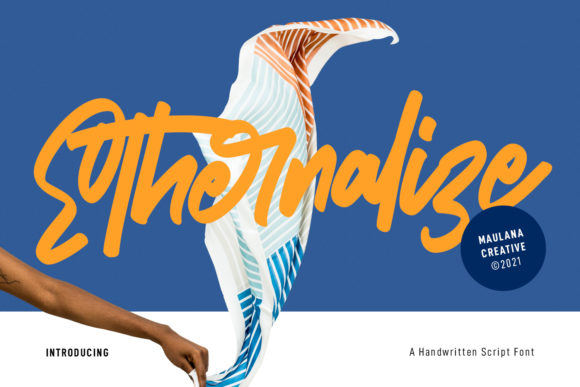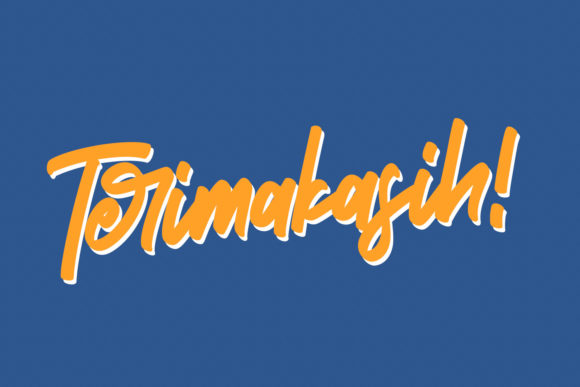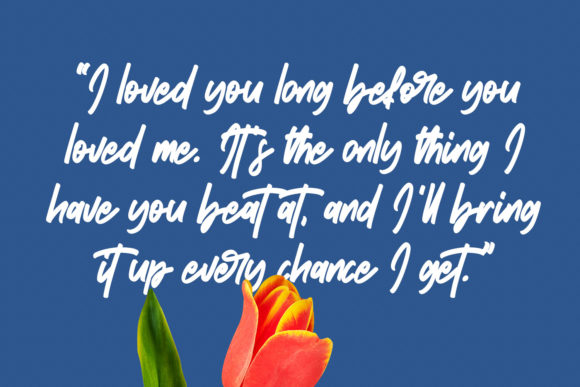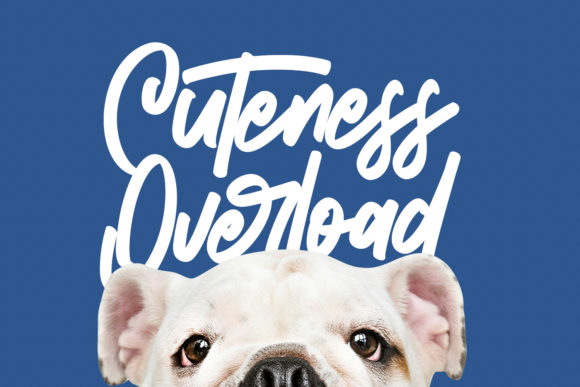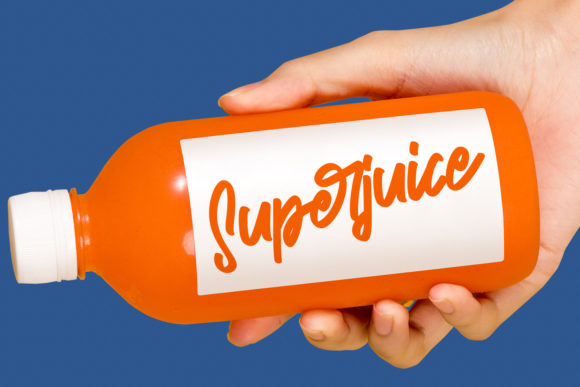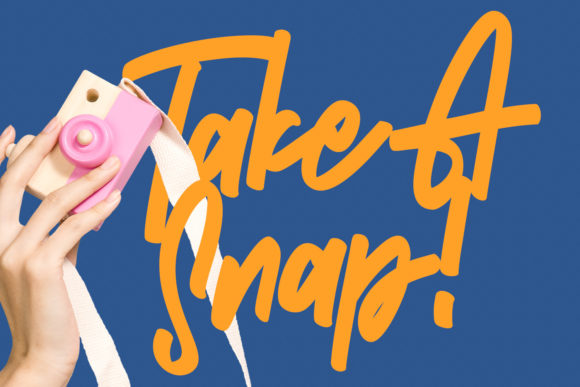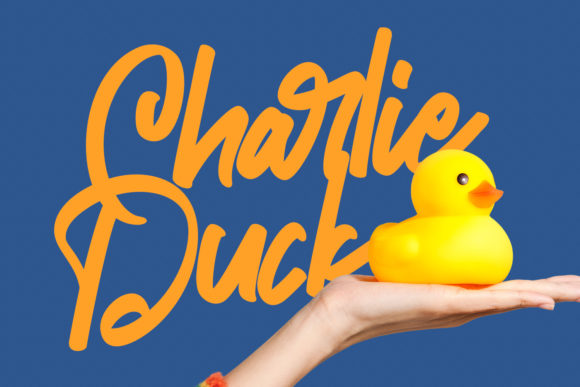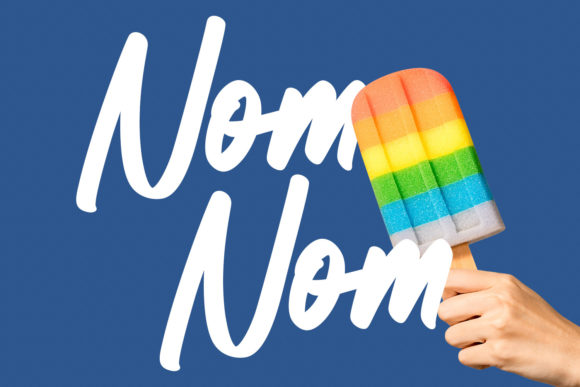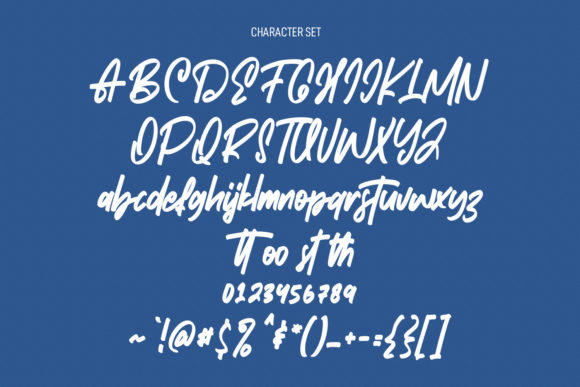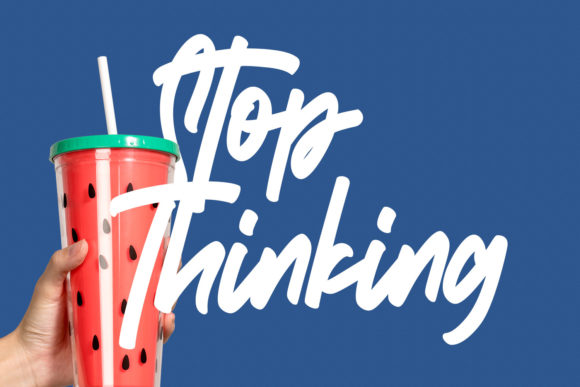
Ethernalize Font
About Ethernalize Font
Ethernalize is an elegant handwritten font perfect for logo design, social media posts, movie and book titles, and many more. Add it to any of your creative projects, and make stunning work with Ethernalize font!